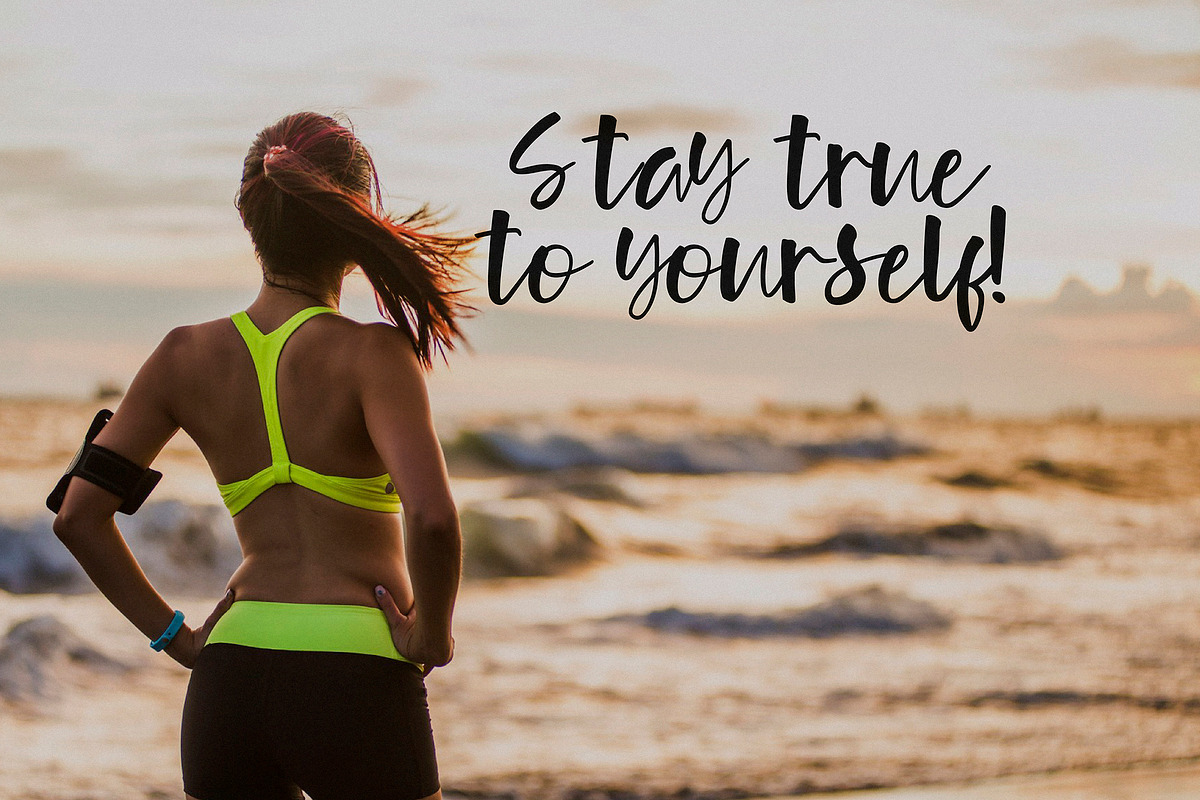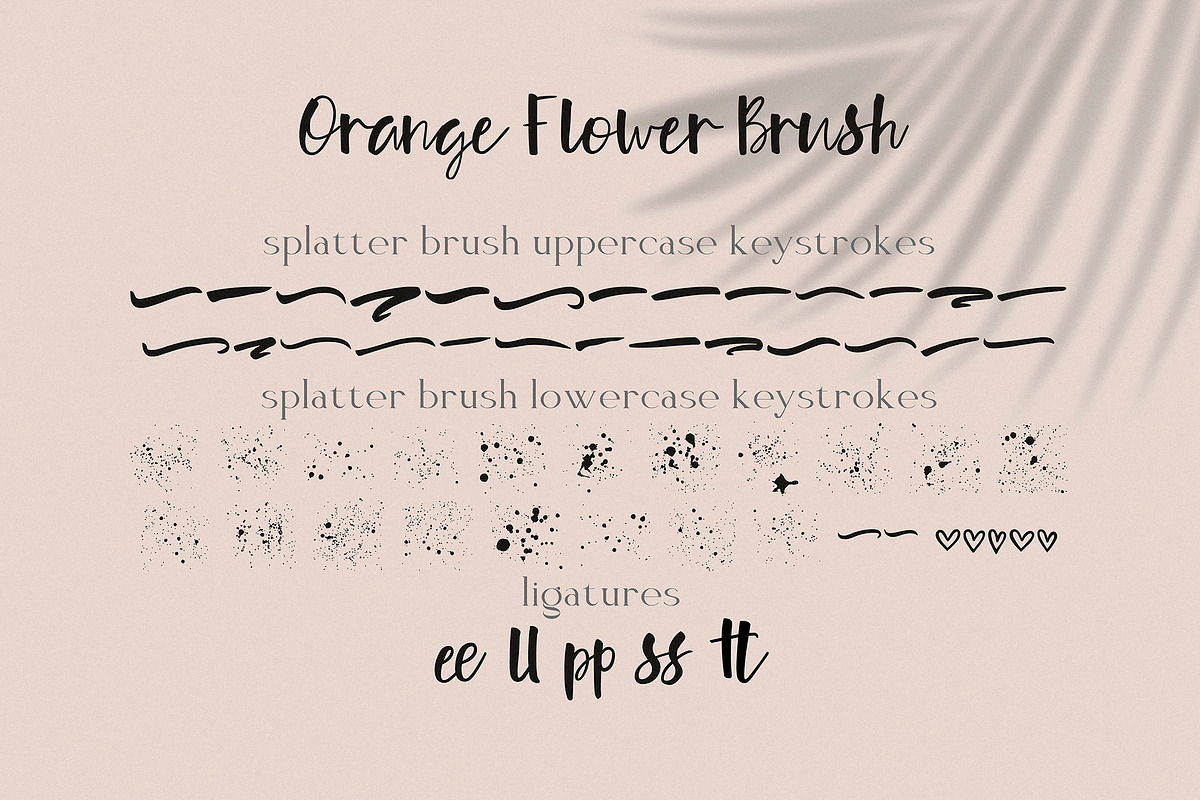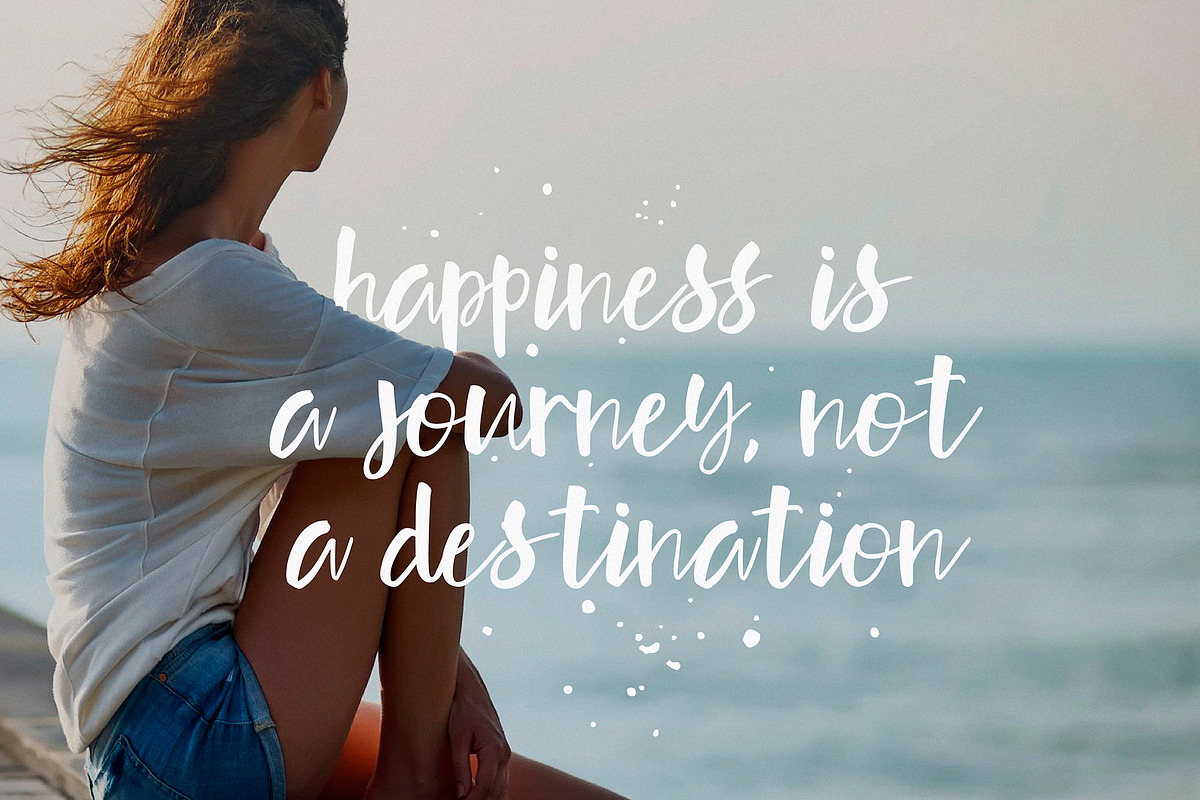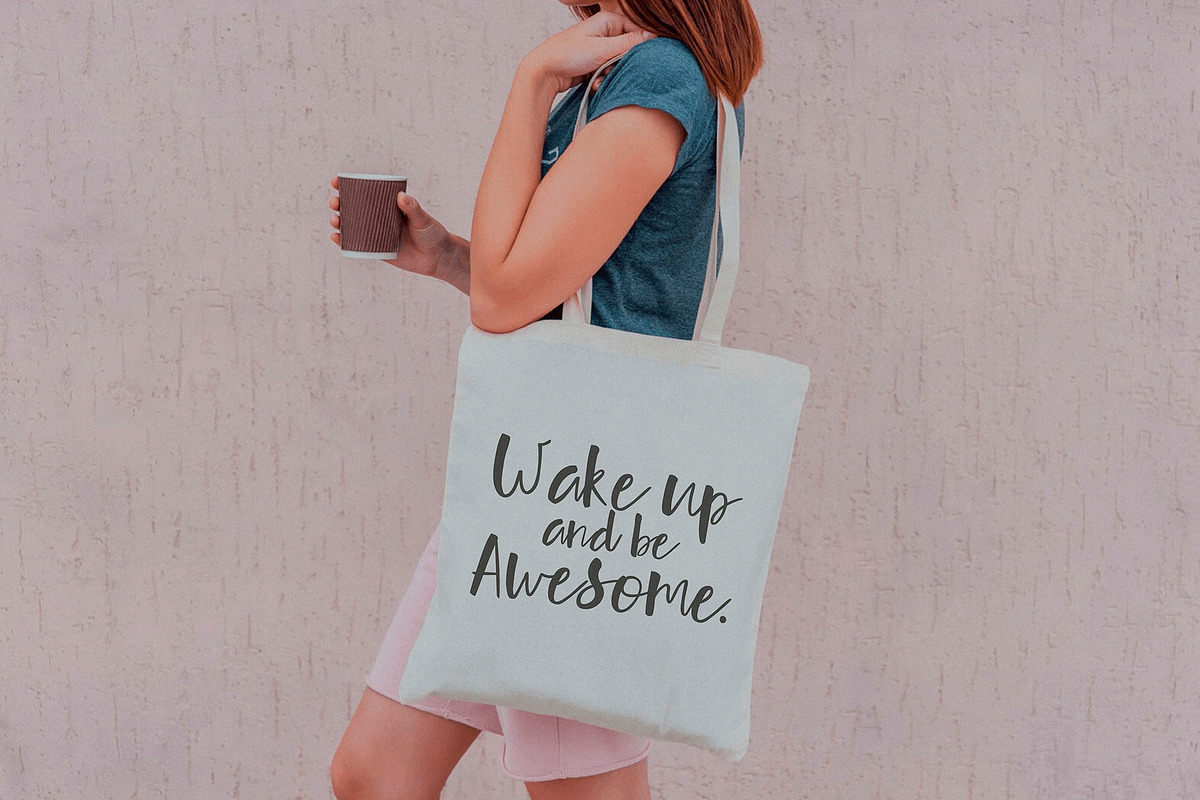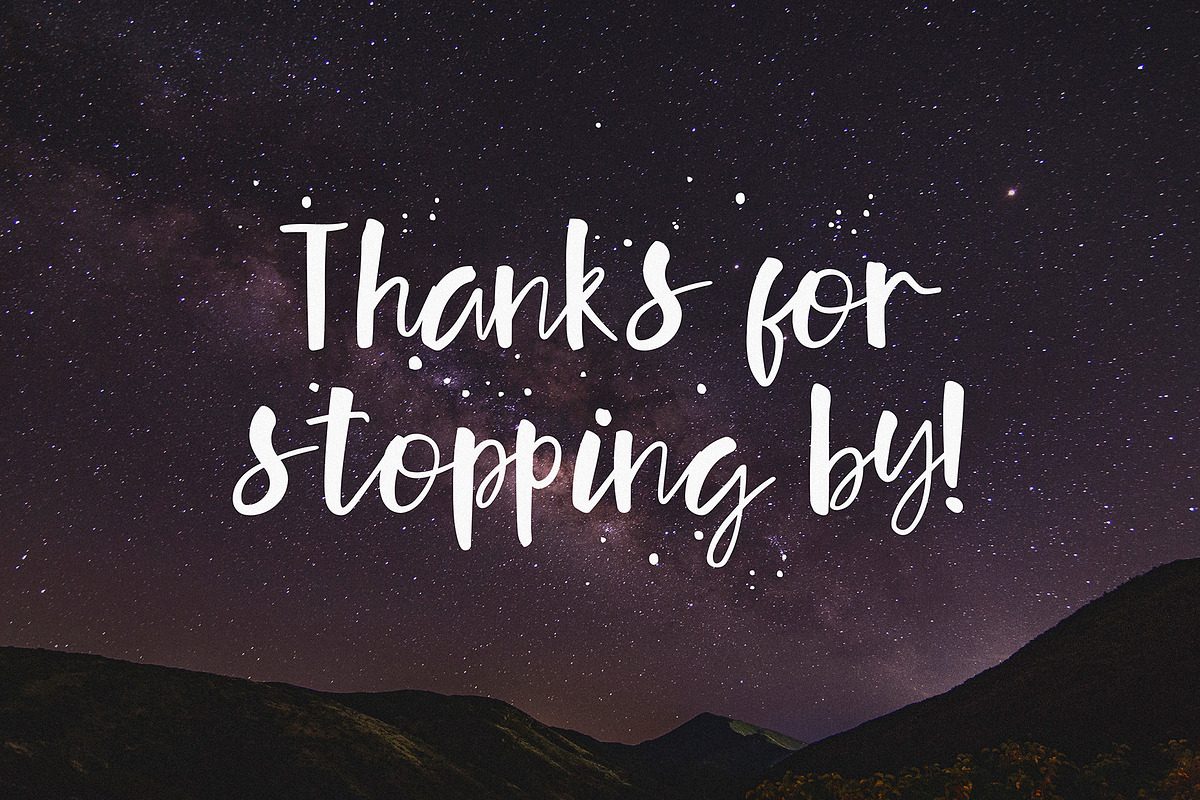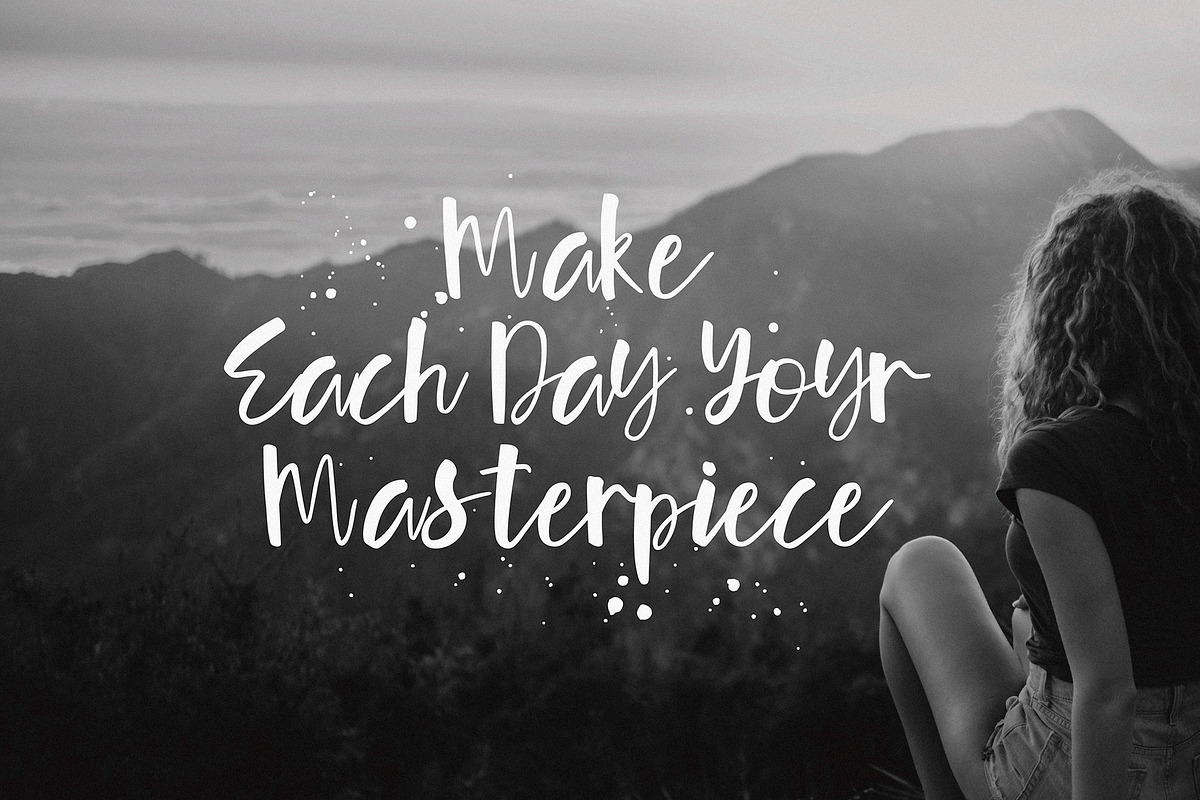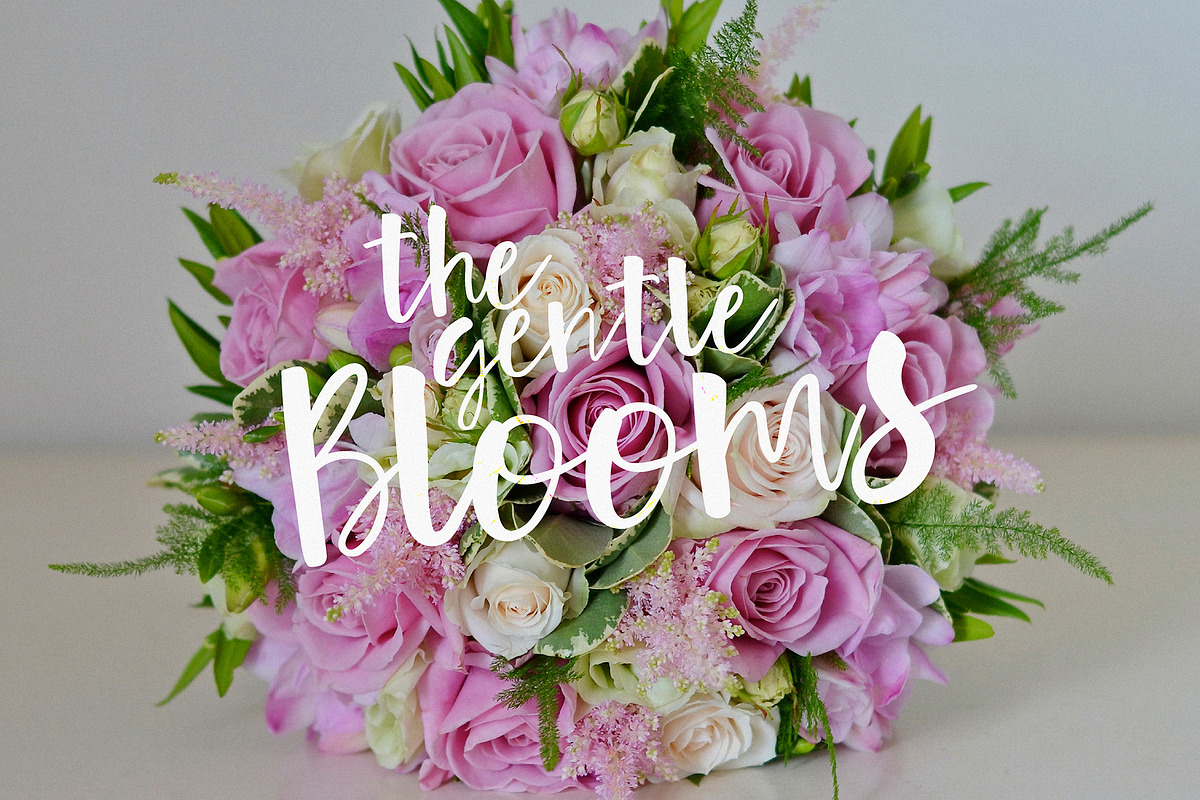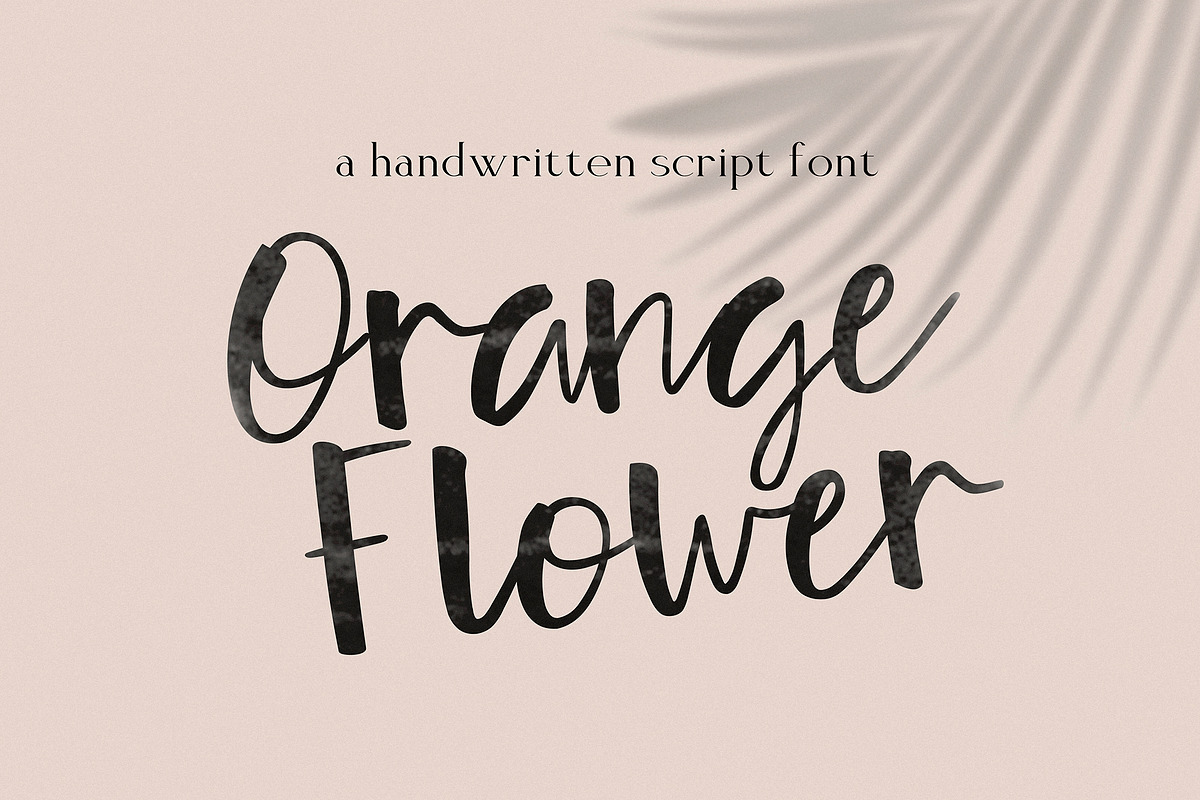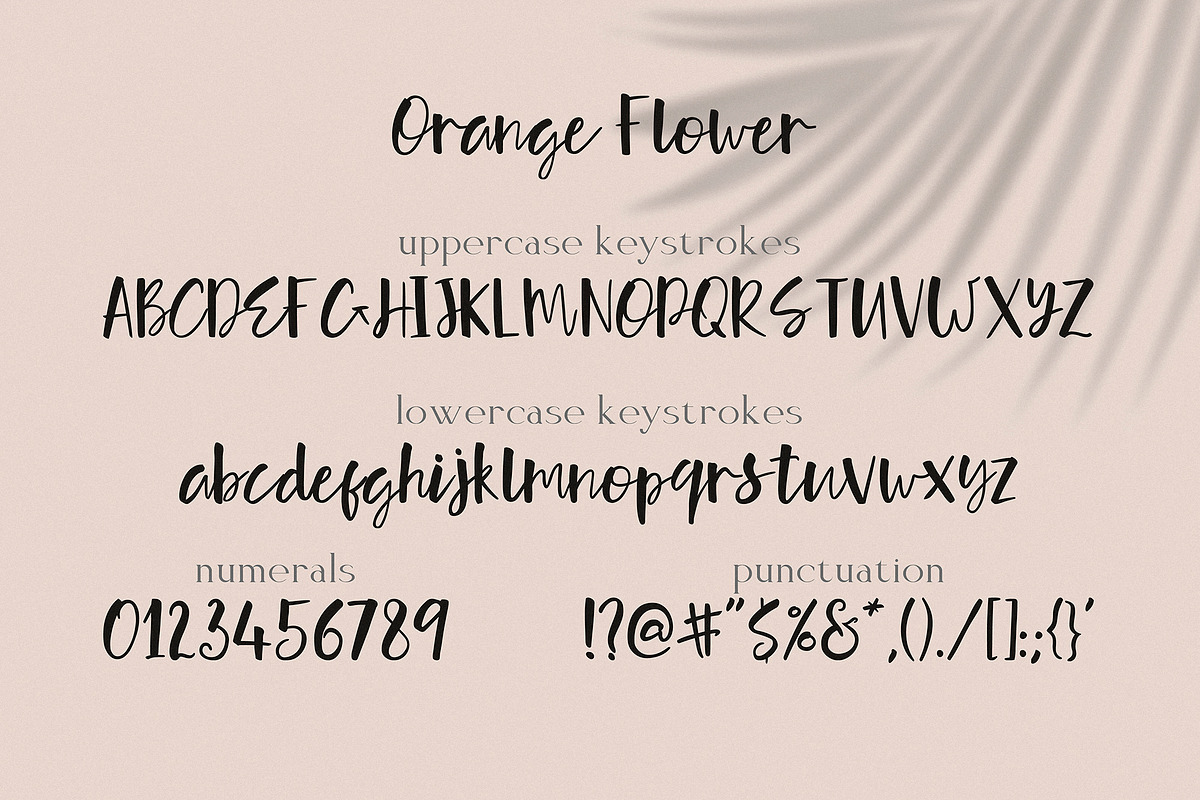
Orange Flower! Typeface with Extras
Say hello to 'Orange Flower'! A bold, beautiful, versatile artistic set of handmade fonts with a brush and many additions!
'Orange Flower' comes with alternative uppercase and lowercase characters.
Thanks to the very clear contrast in weight and authentic style made with a brush, 'Orange Flower' is guaranteed to give your text an individual, individual feeling - ideal for logos, printed quotes, invitations, postcards, product packaging, headlines, for use in ink-based drawings or watercolors or independently in the form of bold handmade inscriptions. :) lovingly created to bring your typographic creations to life! PLUS!! hand-drawn strokes/underscores watercolor brushes and brush splashes in vector and Photoshop brushes to give your design a sloppy realistic look and everything your imagination is capable of. :) - Click on Preview 2 to see ALL the BONUS ITEMS :)